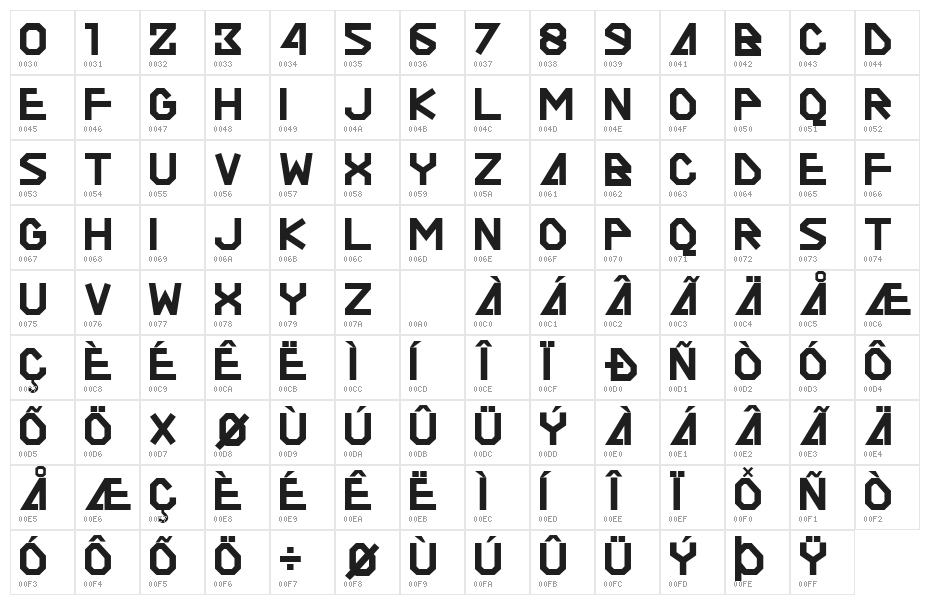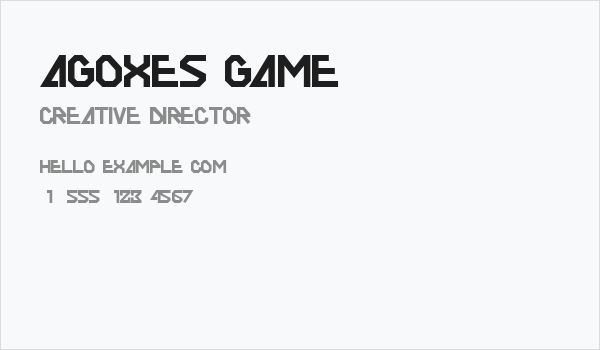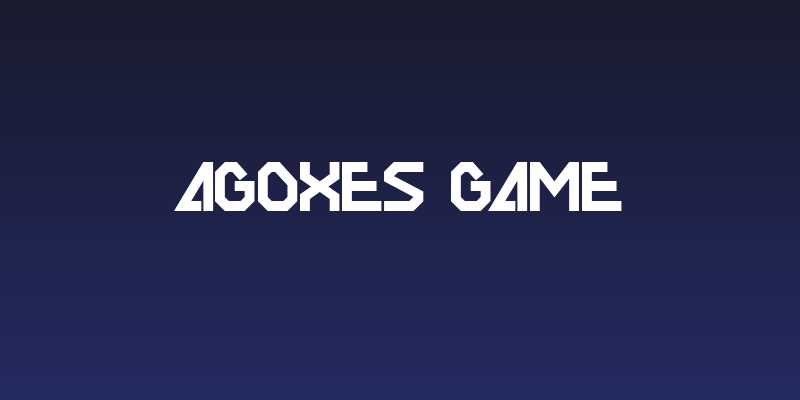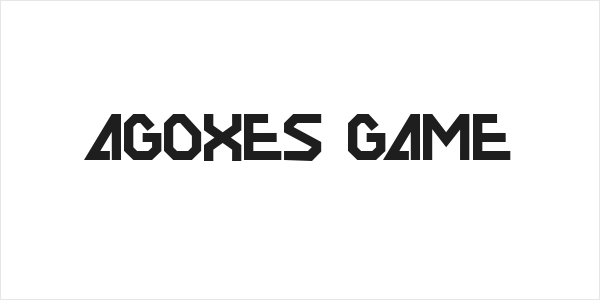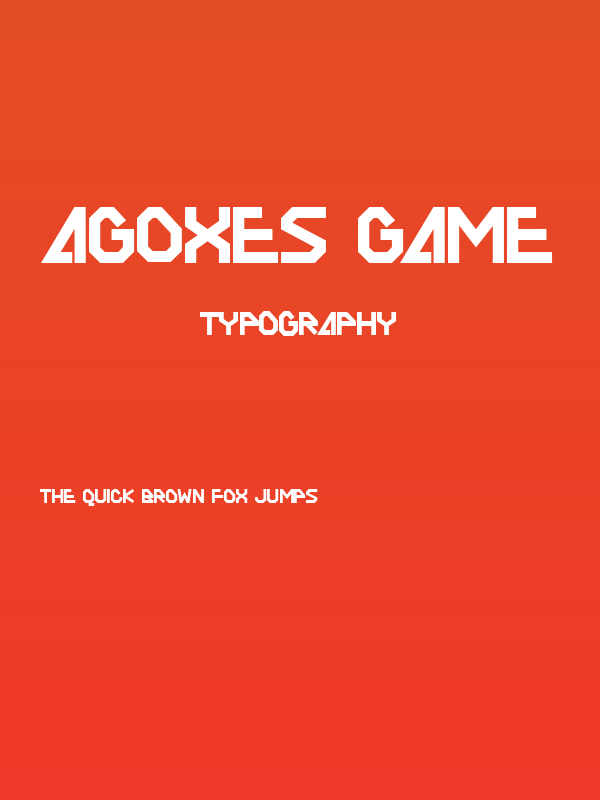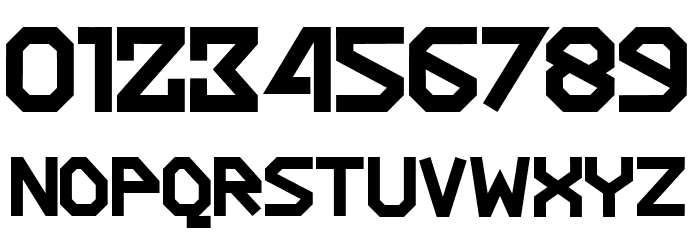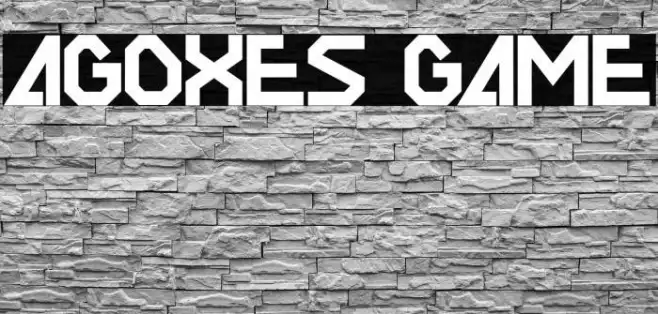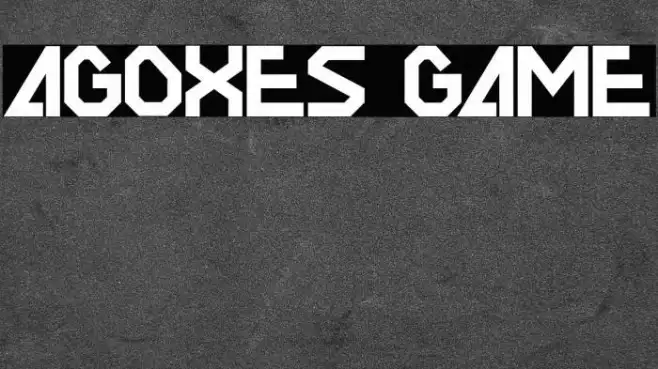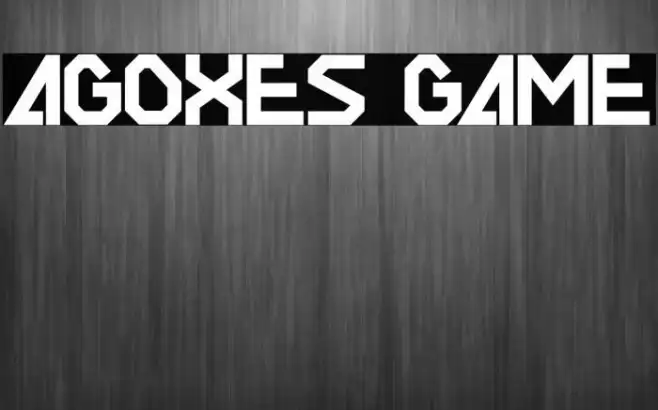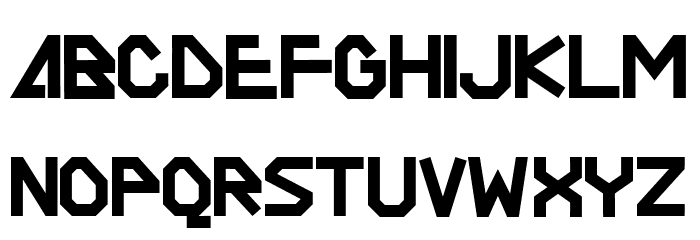
AGOXES GAME Font
AGOXES GAME Description
This font features a bold, geometric design with sharp angles and a futuristic aesthetic. The characters are constructed with straight lines and angular cuts, giving it a distinct, edgy appearance. The uppercase letters are particularly striking, with a uniform height and width that create a cohesive look. The numbers follow the same design principles, maintaining consistency across the font. The overall style is modern and dynamic, making it suitable for projects that require a strong visual impact. The font's unique structure and bold presence make it ideal for headlines, logos, and branding materials where a contemporary and assertive look is desired.
| Proposed Projects | Ideal for video game titles, tech branding, futuristic posters, and sci-fi themed designs. |